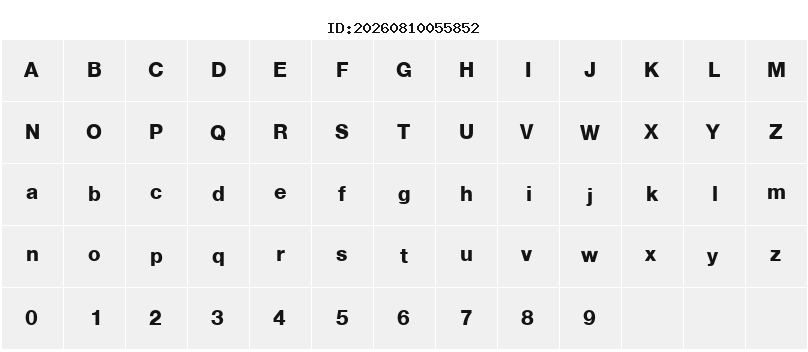
• Font Name: PSL-EmpireExtra
• Full Font Name: PSL-EmpireExtra Regular
About PSL-EmpireExtra.ttf
PSL-EmpireExtra.ttf is a modern, elegant sans-serif font designed for ultimate readability and visual harmony. Perfect for branding, headlines, web design, and print materials.